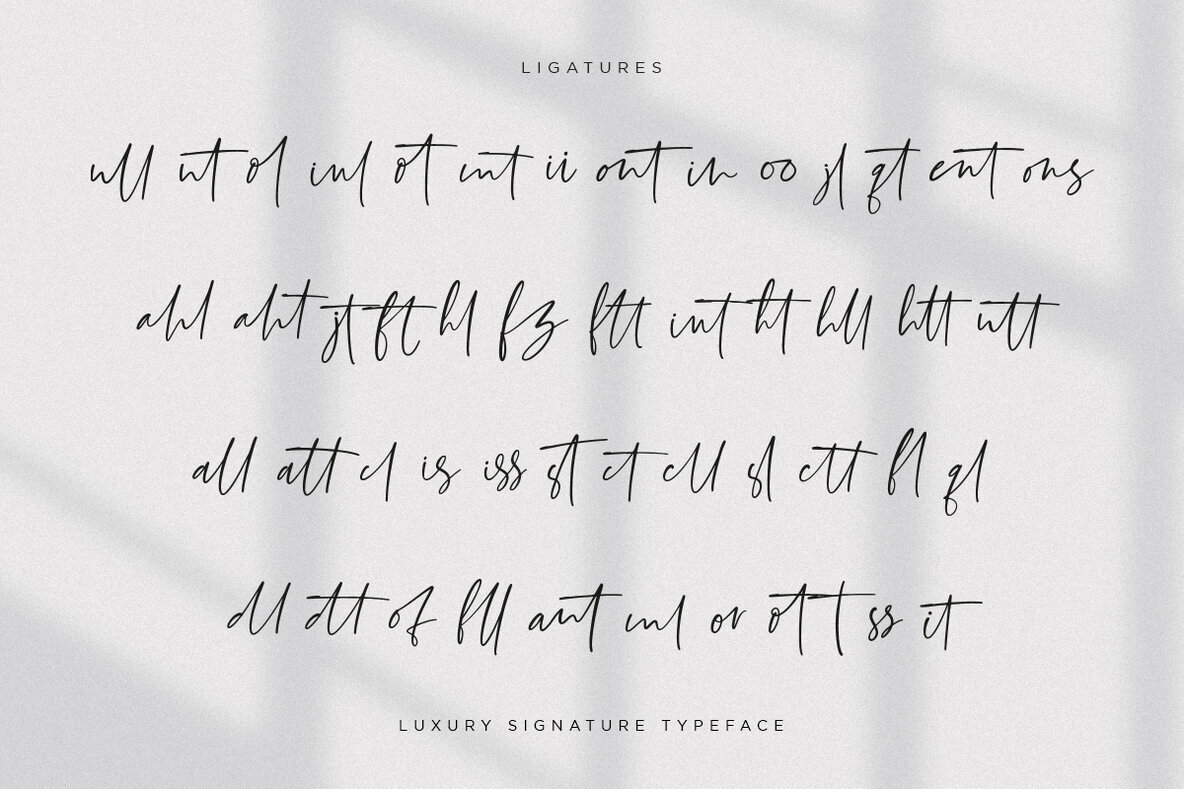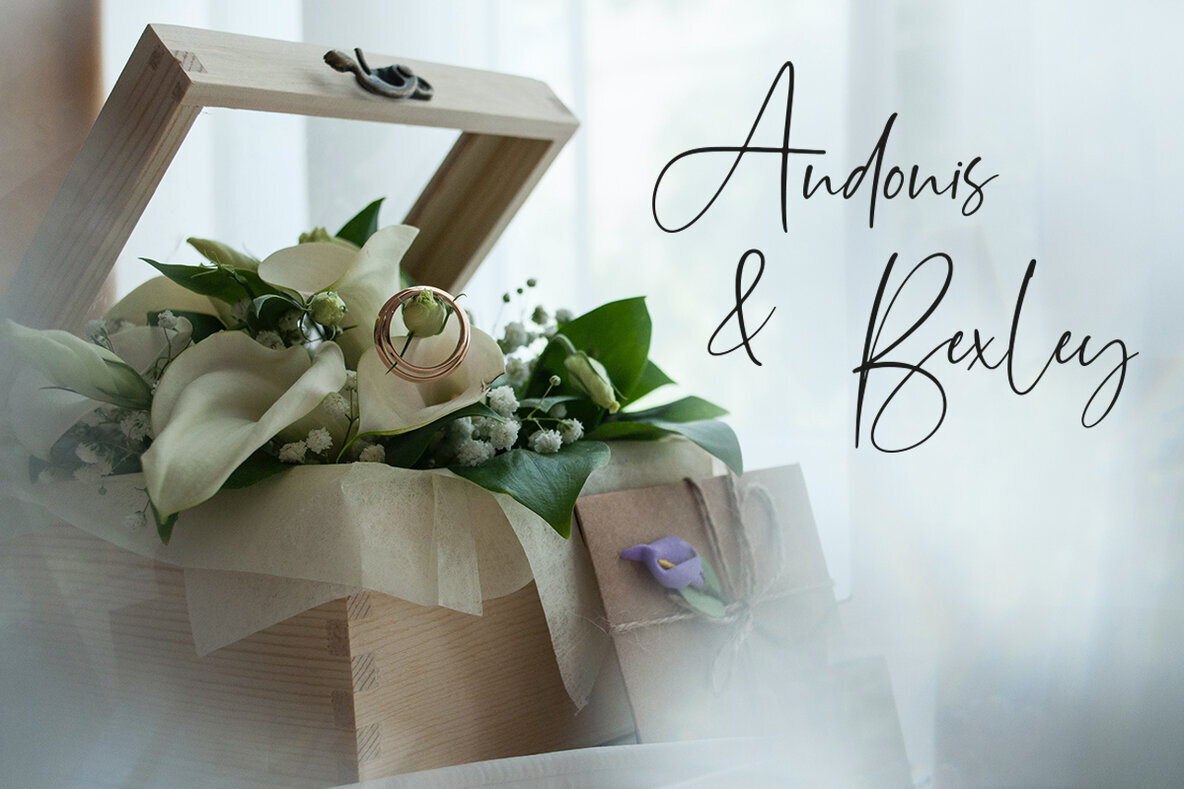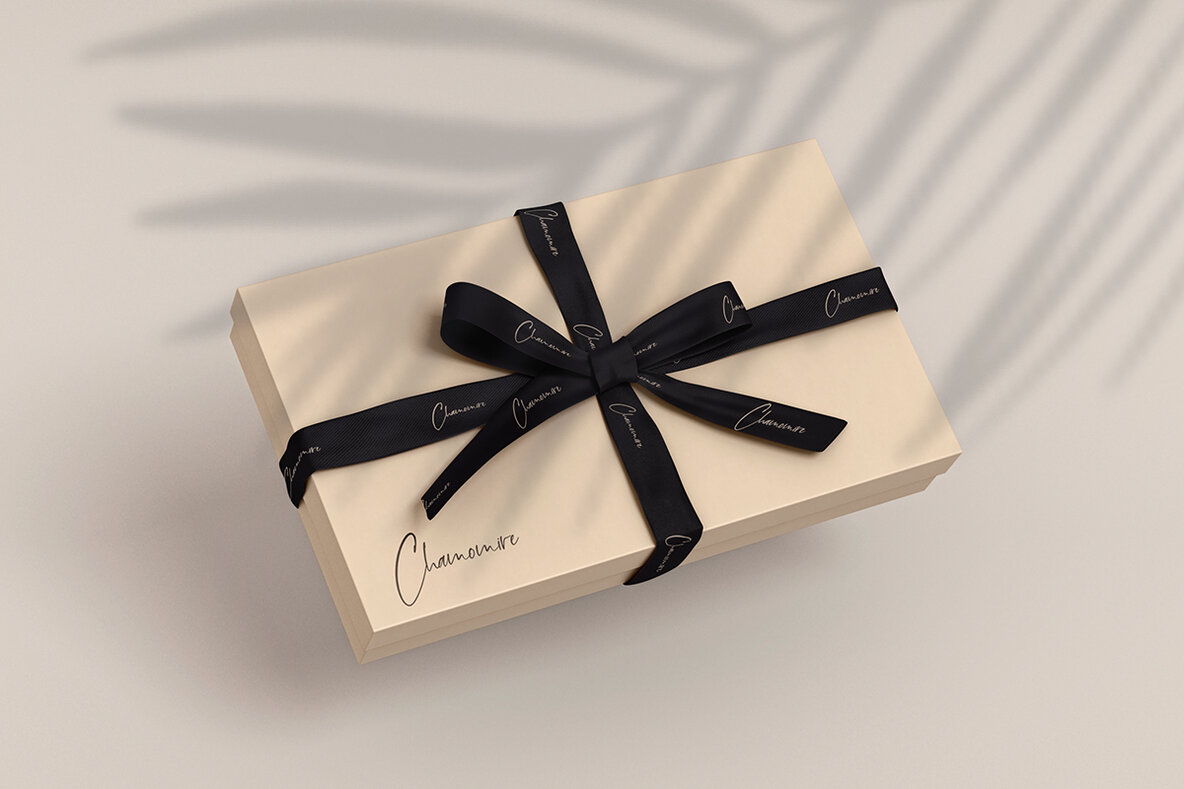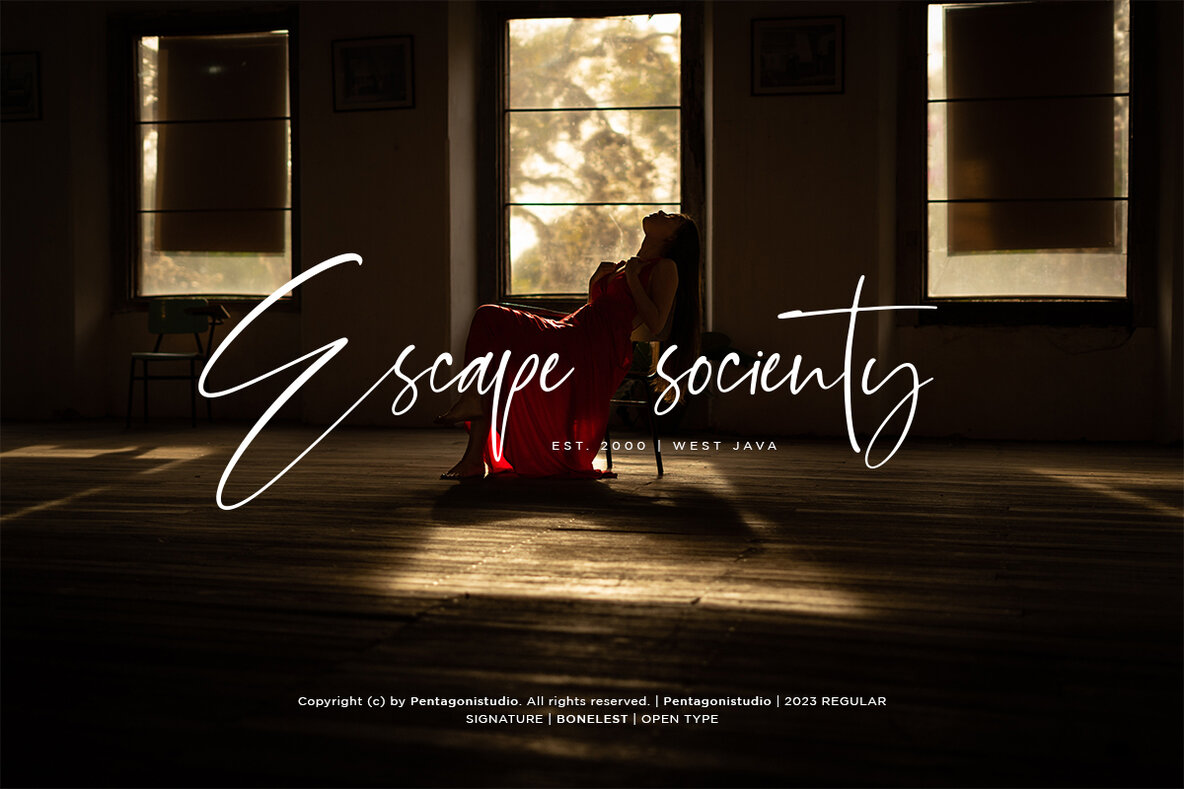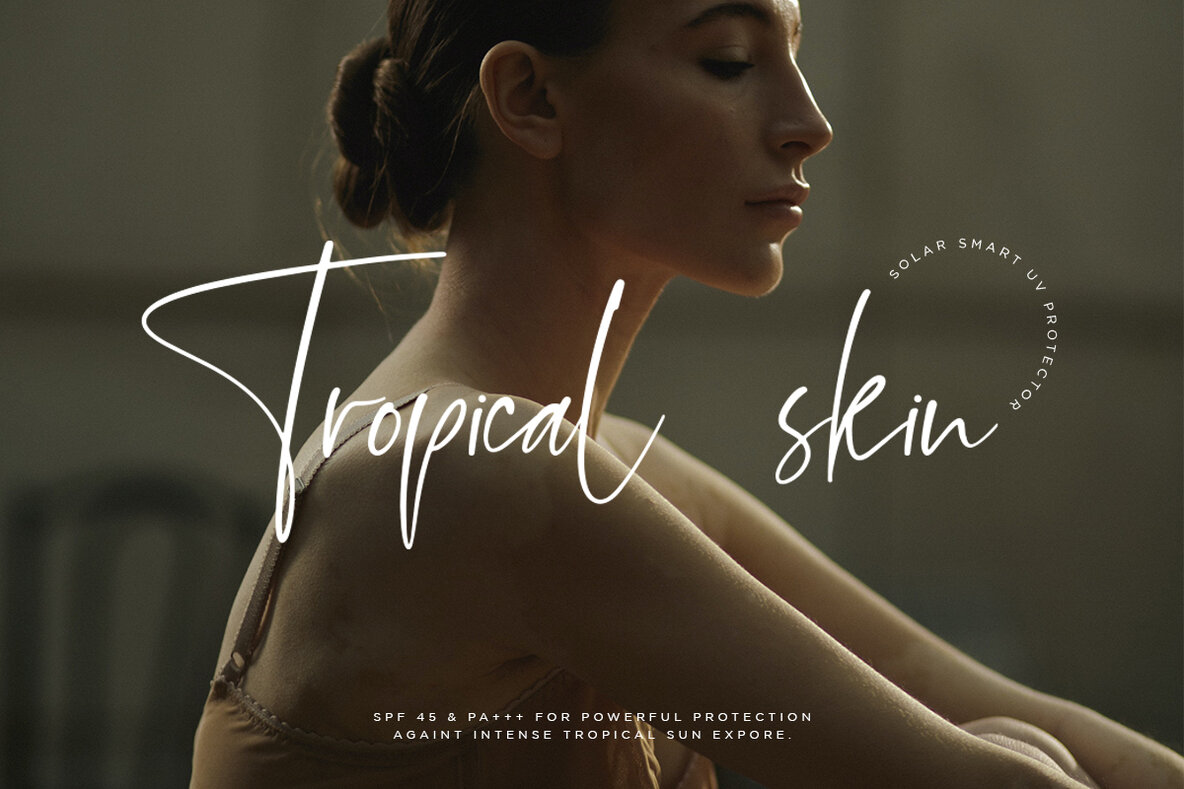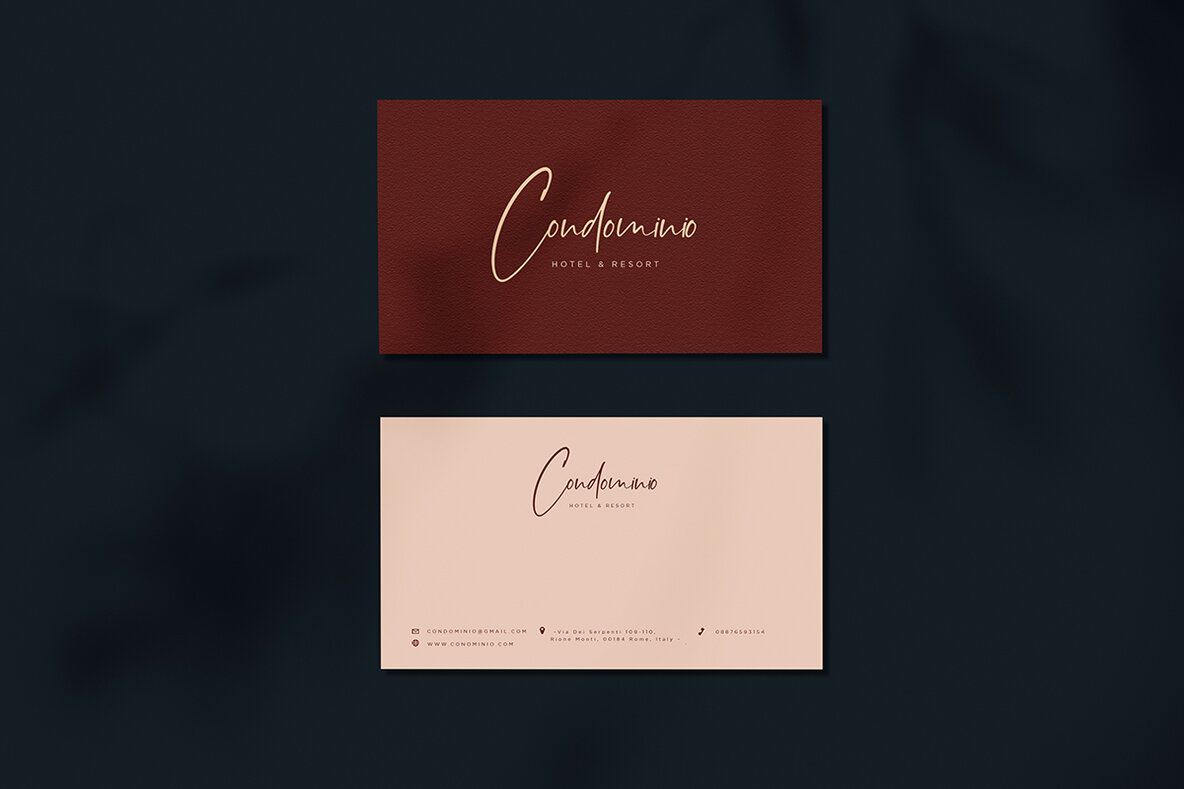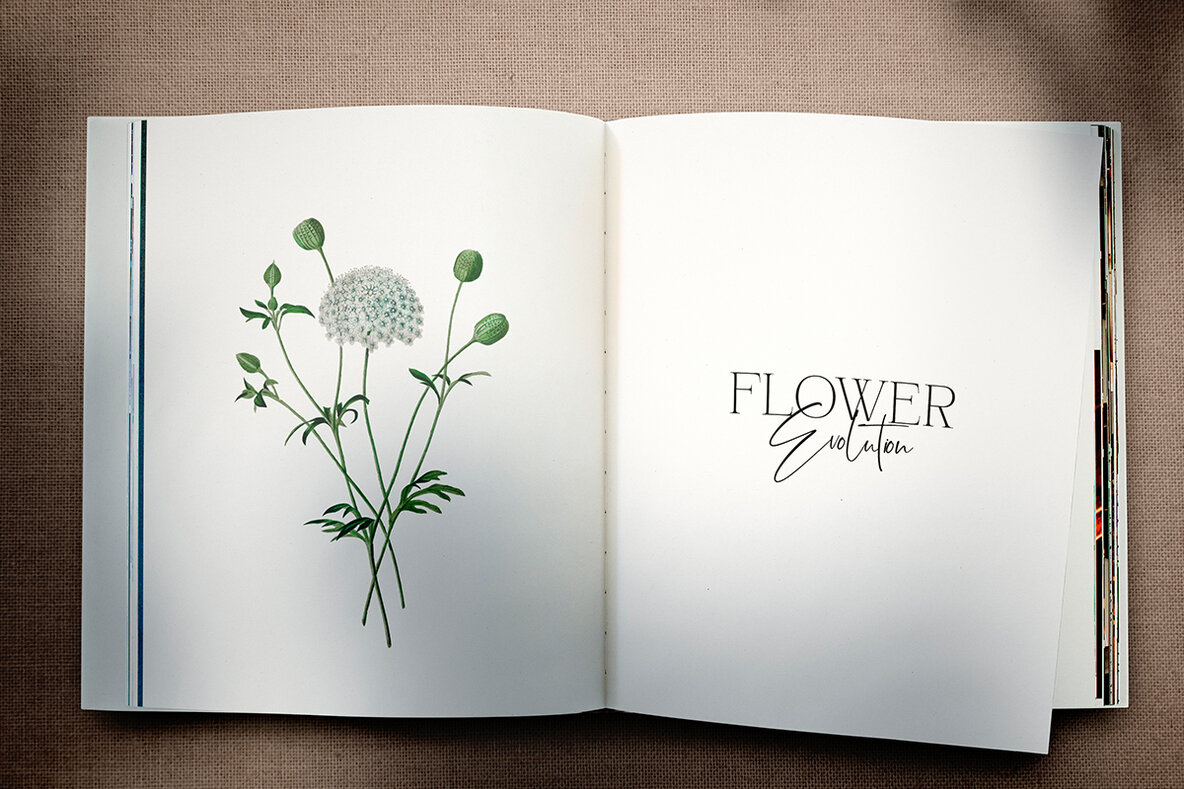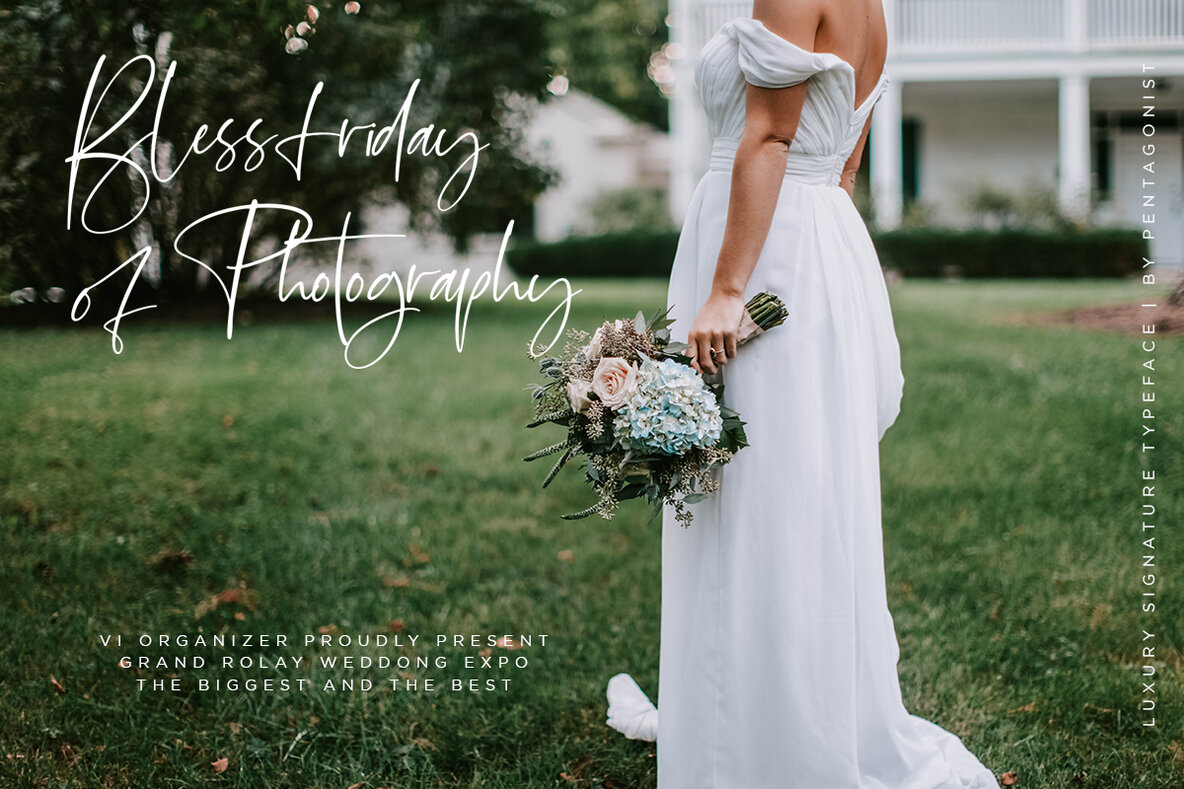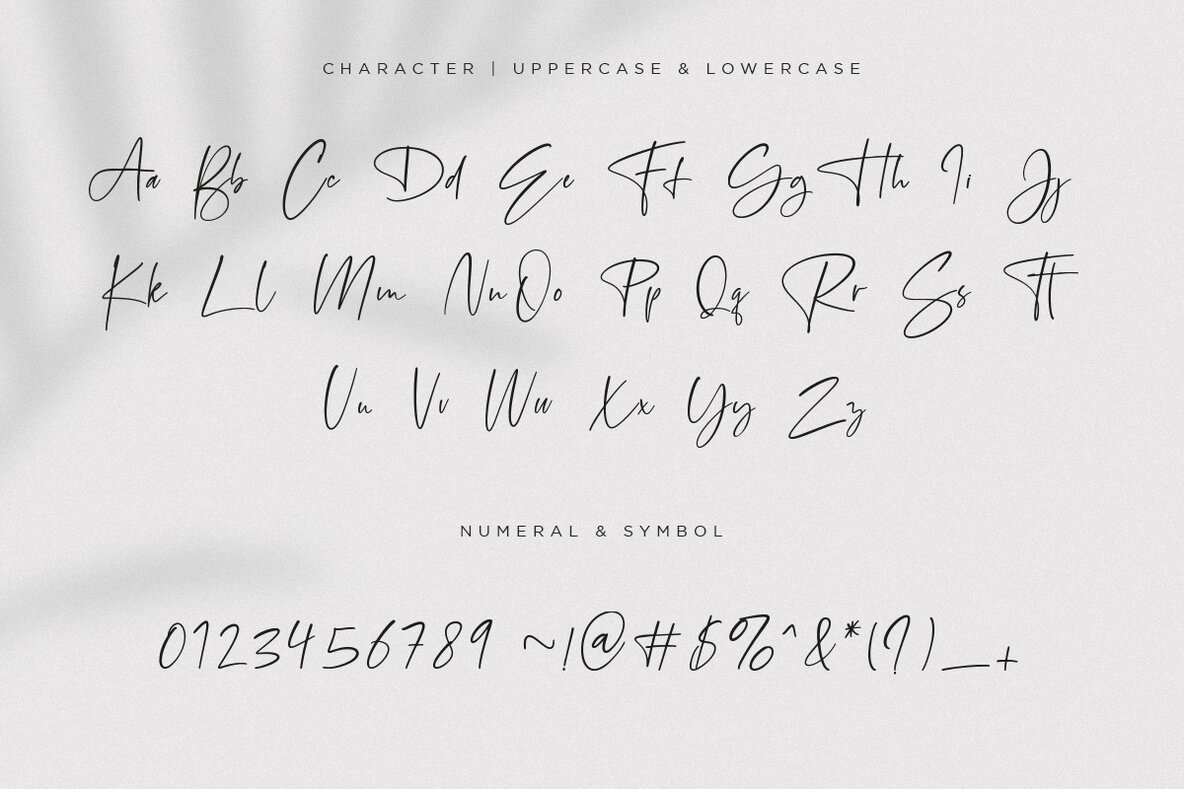
Bonelest Font
Bonelest Regular
Bonelest offers a fresh take on script fonts, drawing inspiration from authentic handwriting to deliver an effortless blend of charm and readability. Whether used for branding or personal projects, this typeface stands out with its fluid strokes and clean composition. Suitable for a variety of applications, it brings a touch of personality to your designs.Bonelest: A Clean Script Inspired by Handwriting